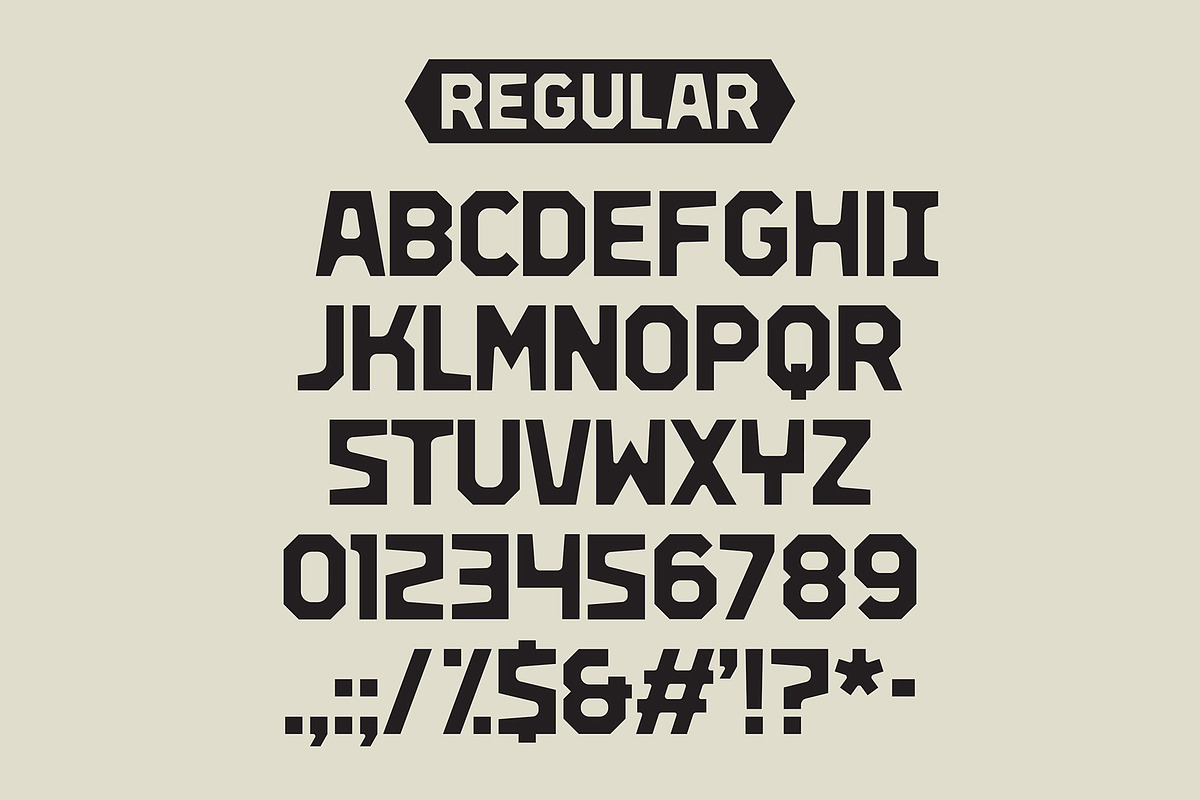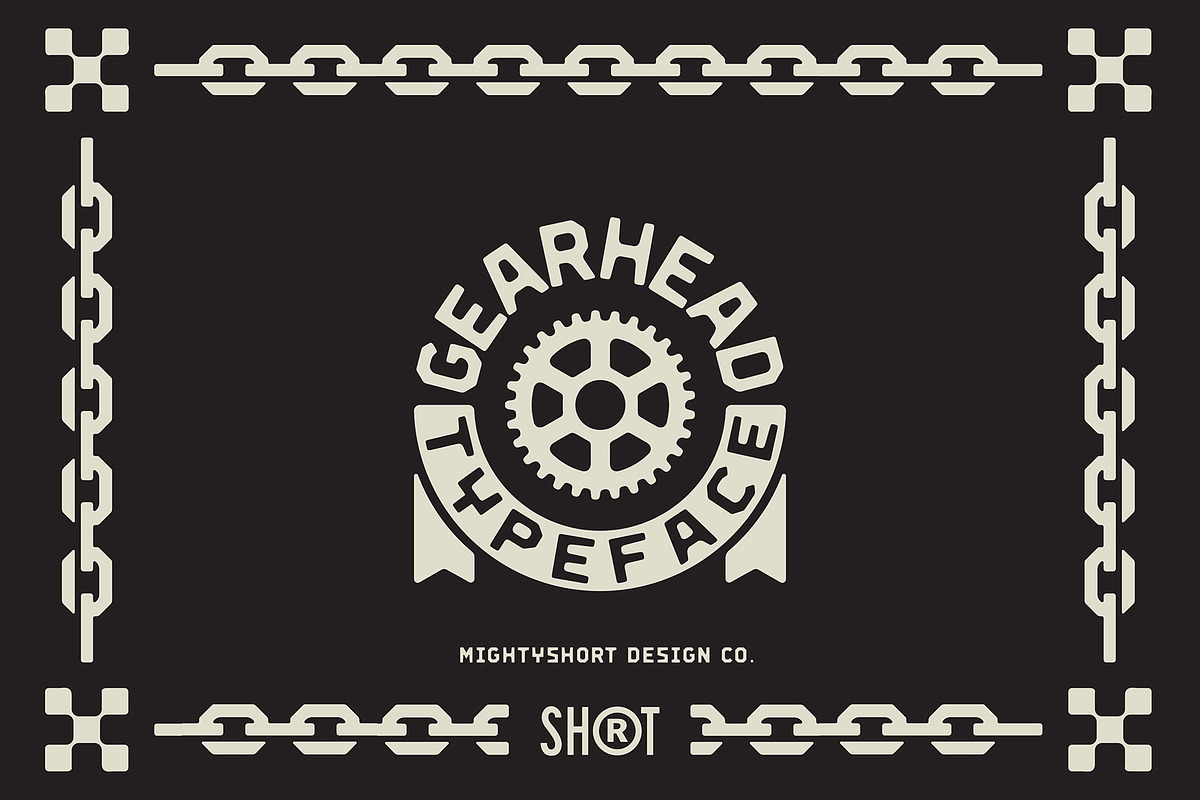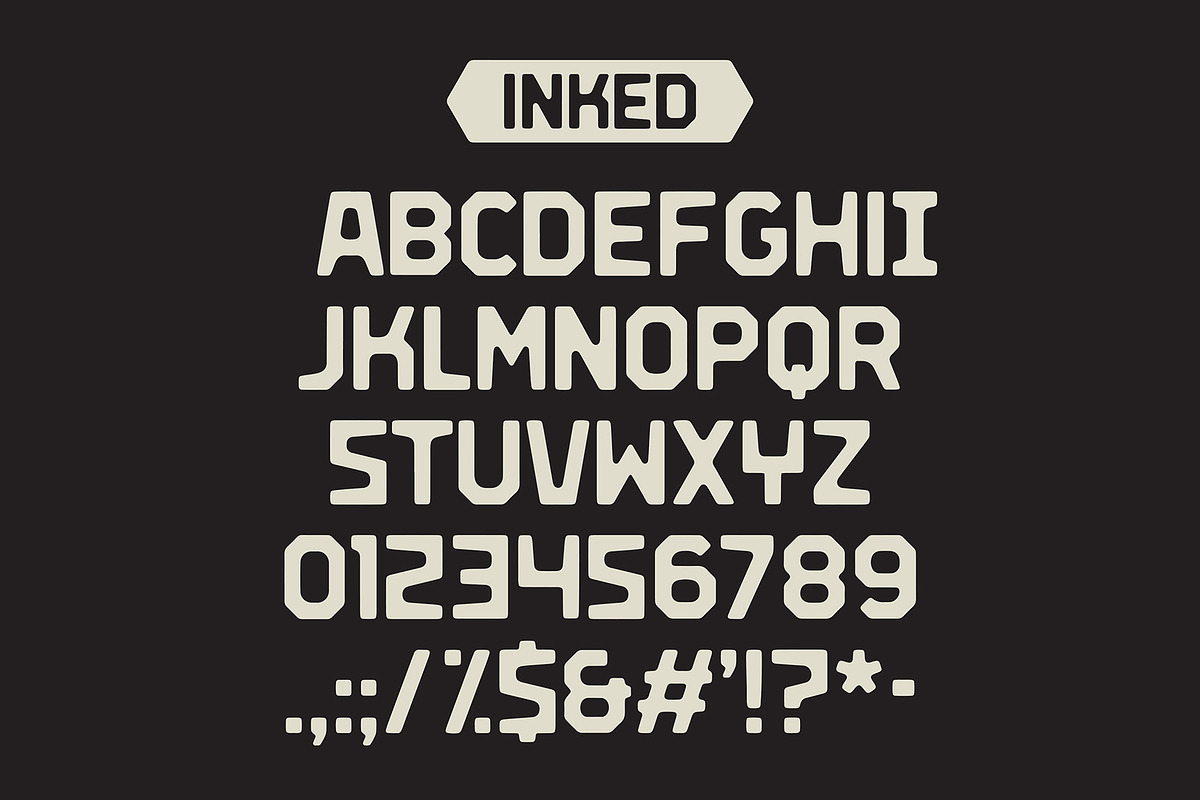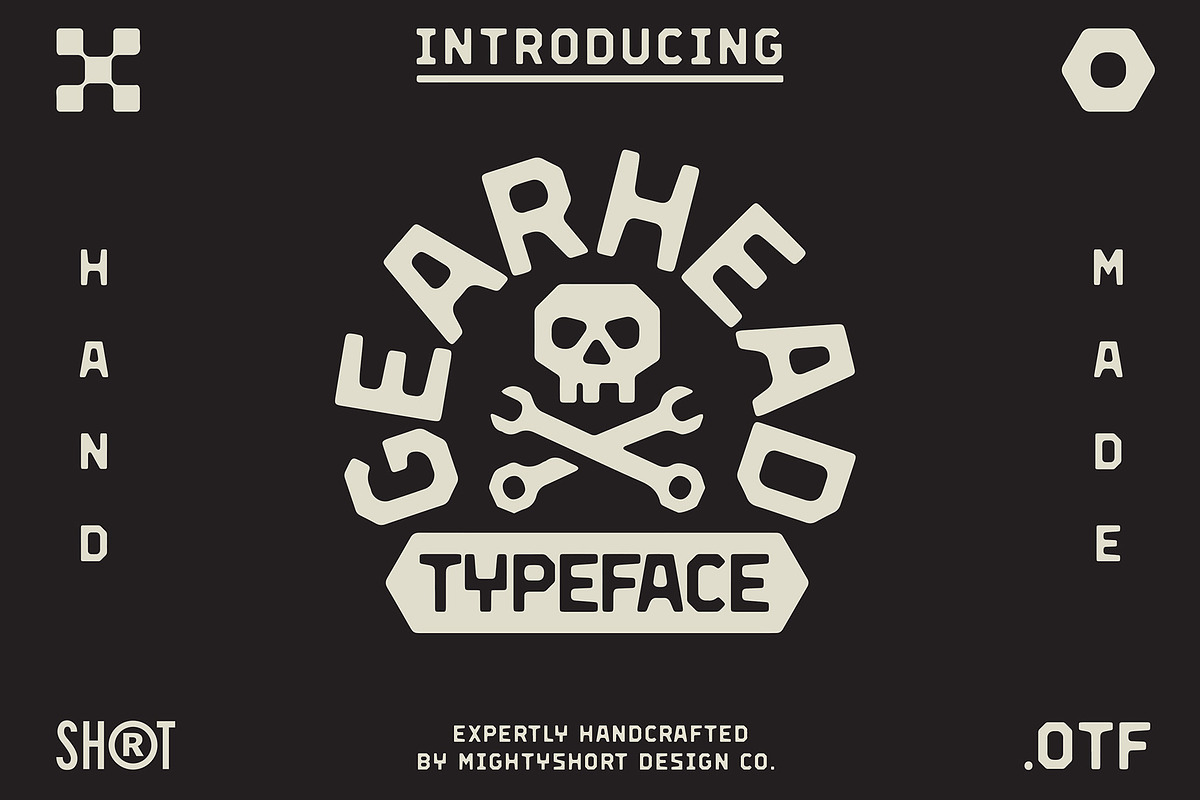
Gearhead Typeface
Gearhead is a bold and industrial typeface perfect for creating eye-catching designs. The uppercase letters are stylized with edges and angled lines reminiscent of engine parts. The typeface comes in two versions, Gearhead Regular and Gearhead Inked, which has a slightly distressed texture. Both fonts include numbers and punctuation for added versatility. Gearhead is ideal for logos, titles, and headlines that require a dynamic and industrial look.